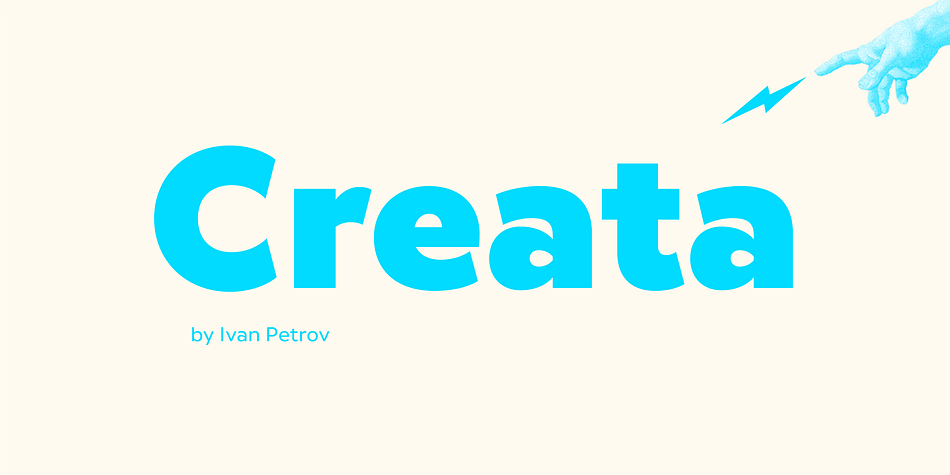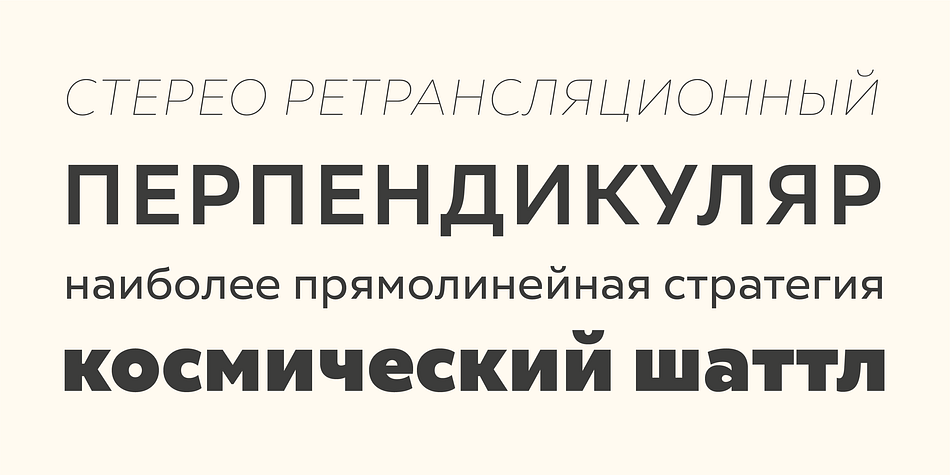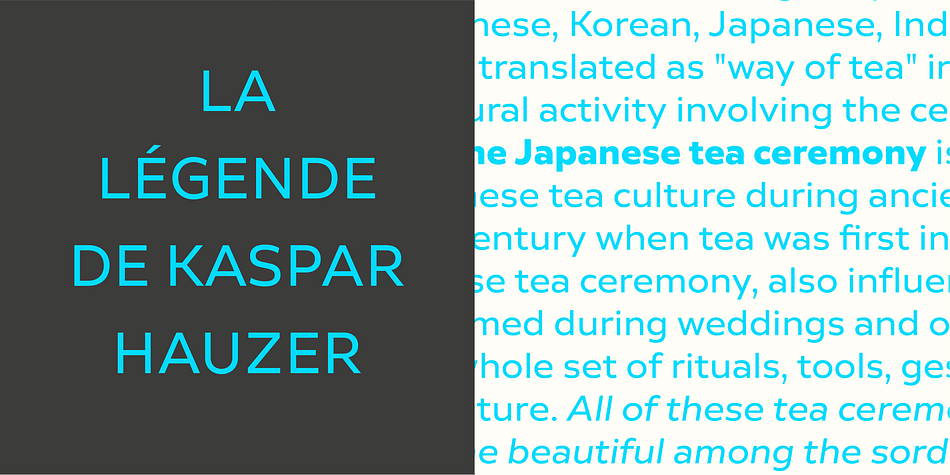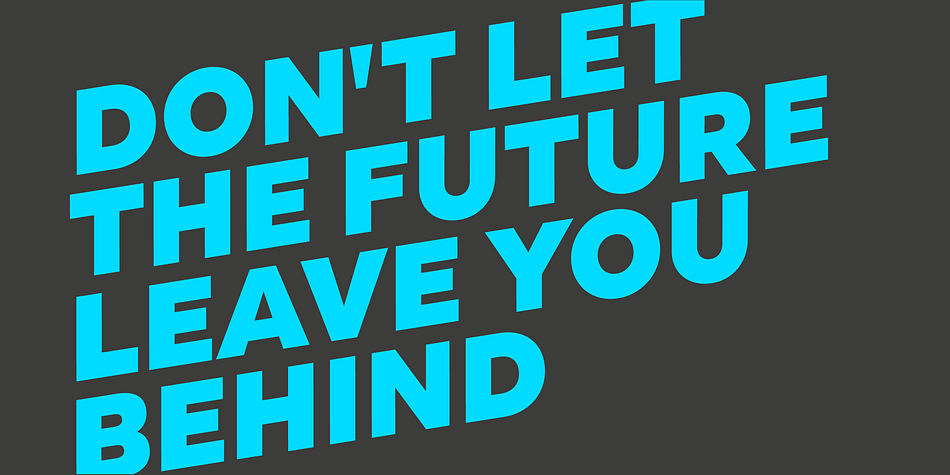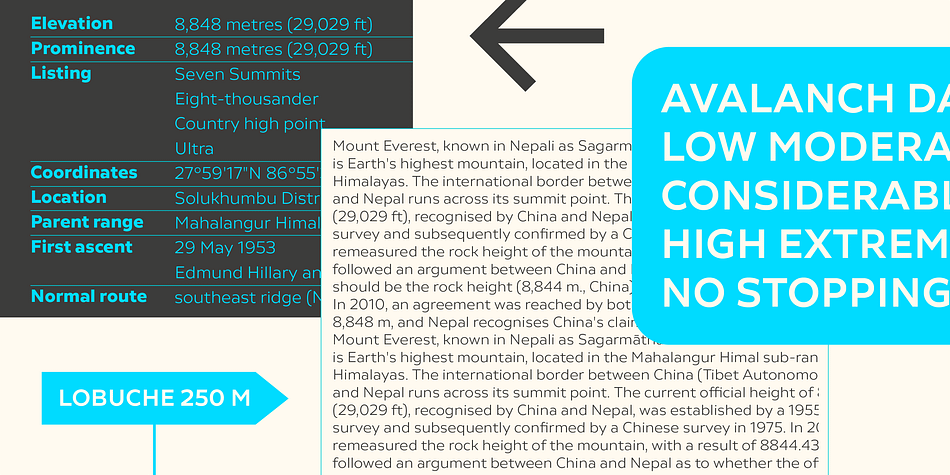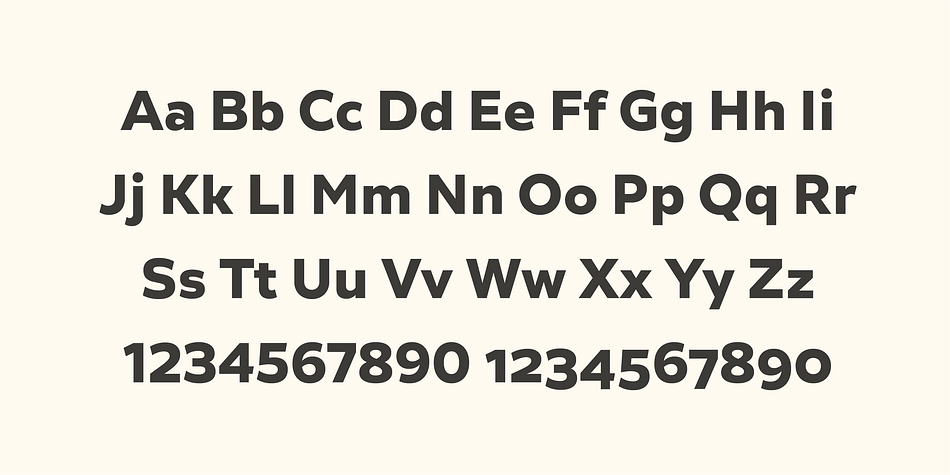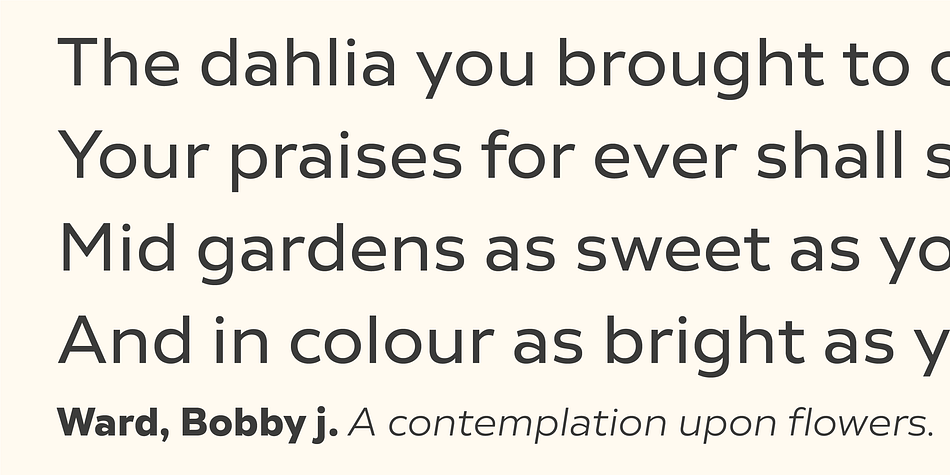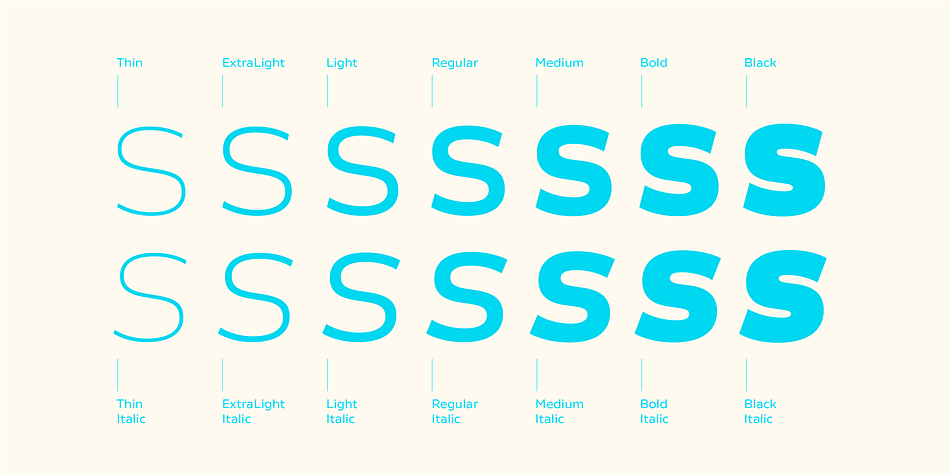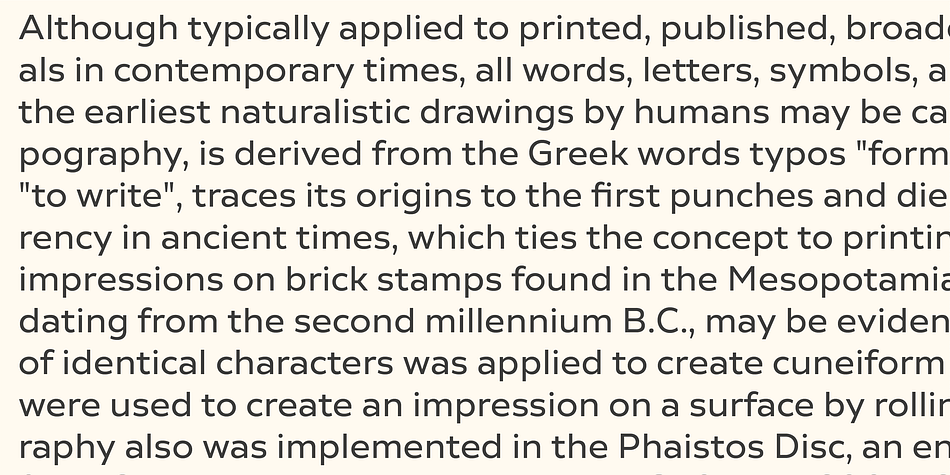
Designed by Ivan Petrov, Creata is a sans serif font family. This typeface has fourteen styles and was published by Ivan Petrov.
Creata is a sans serif typeface with wide range of applications.
The font family contains 14 weights (7 straight with matching italics). The overall design is neutral but some of the letters have a pretty unusual appearance (like @, &).
Creata has its own personality, its own integrity and a unique voice. Recommended for corporate branding and editorial exercises.